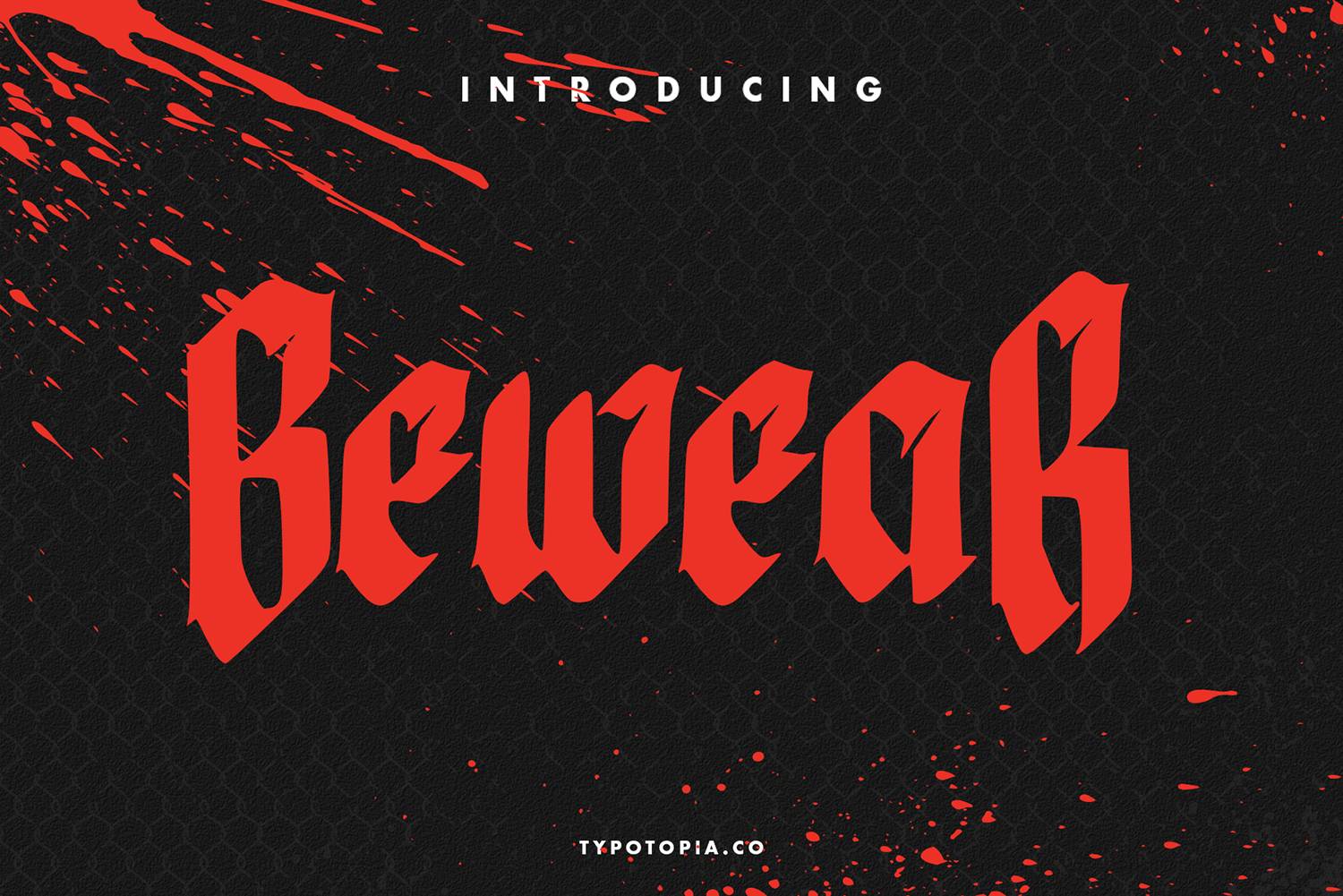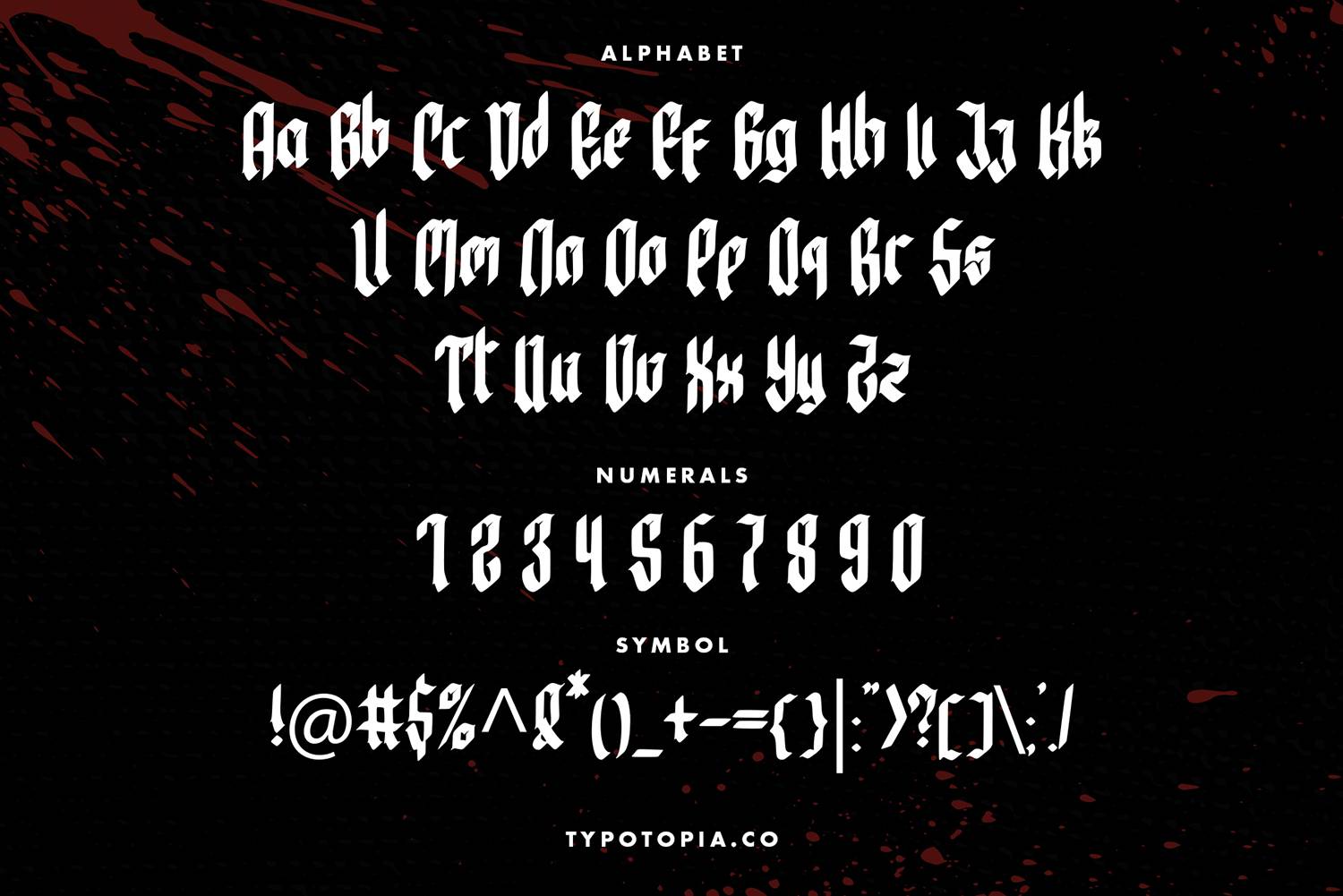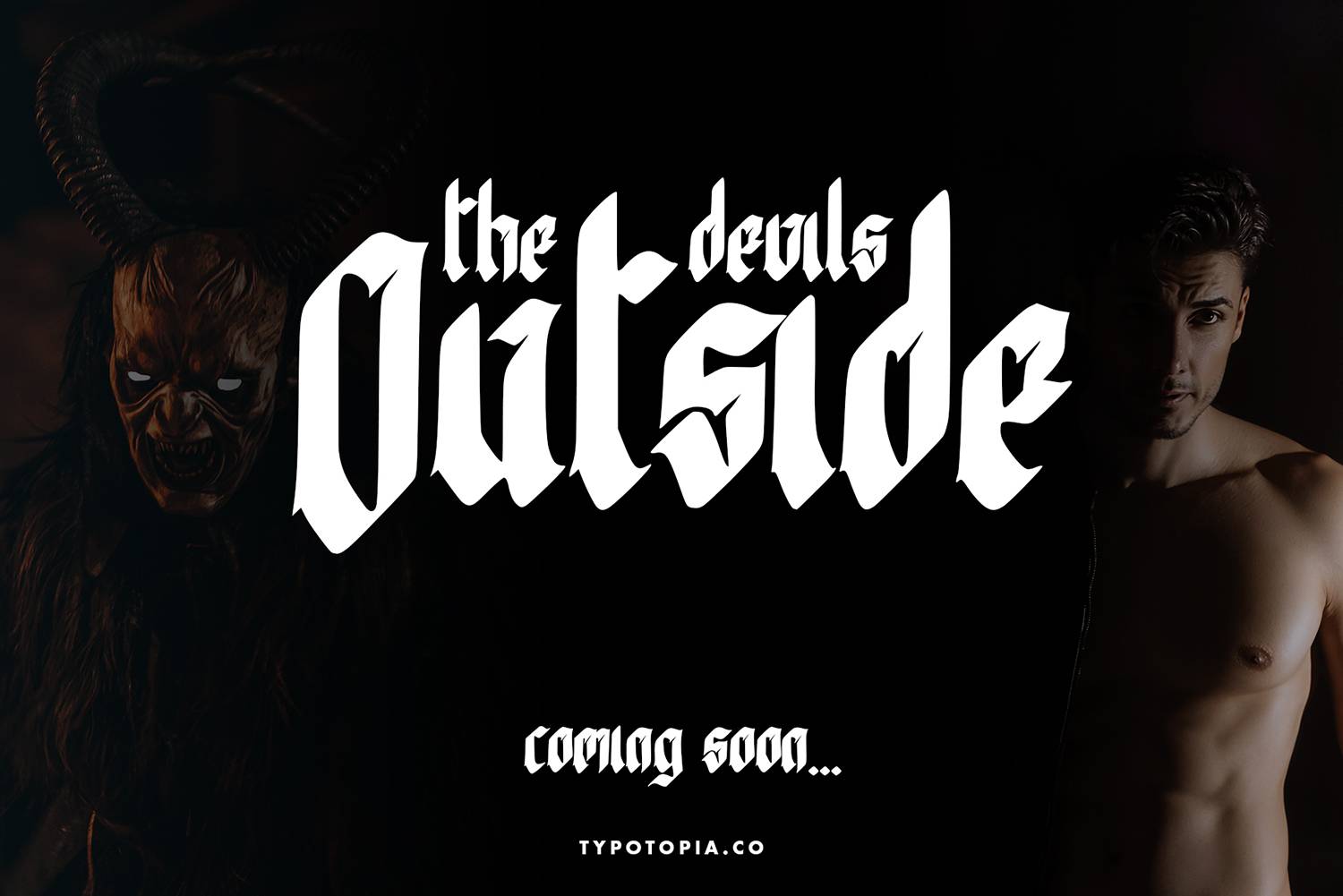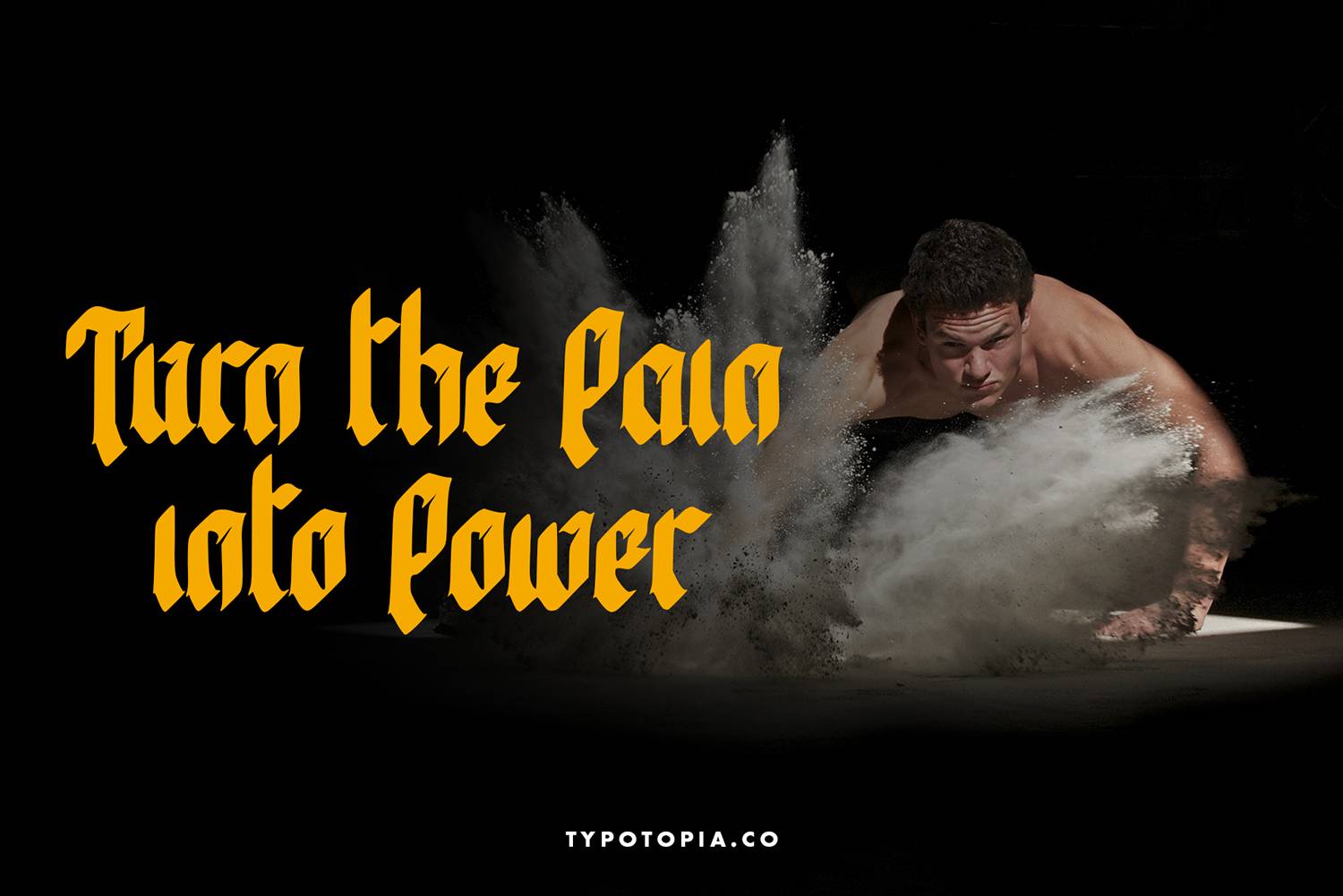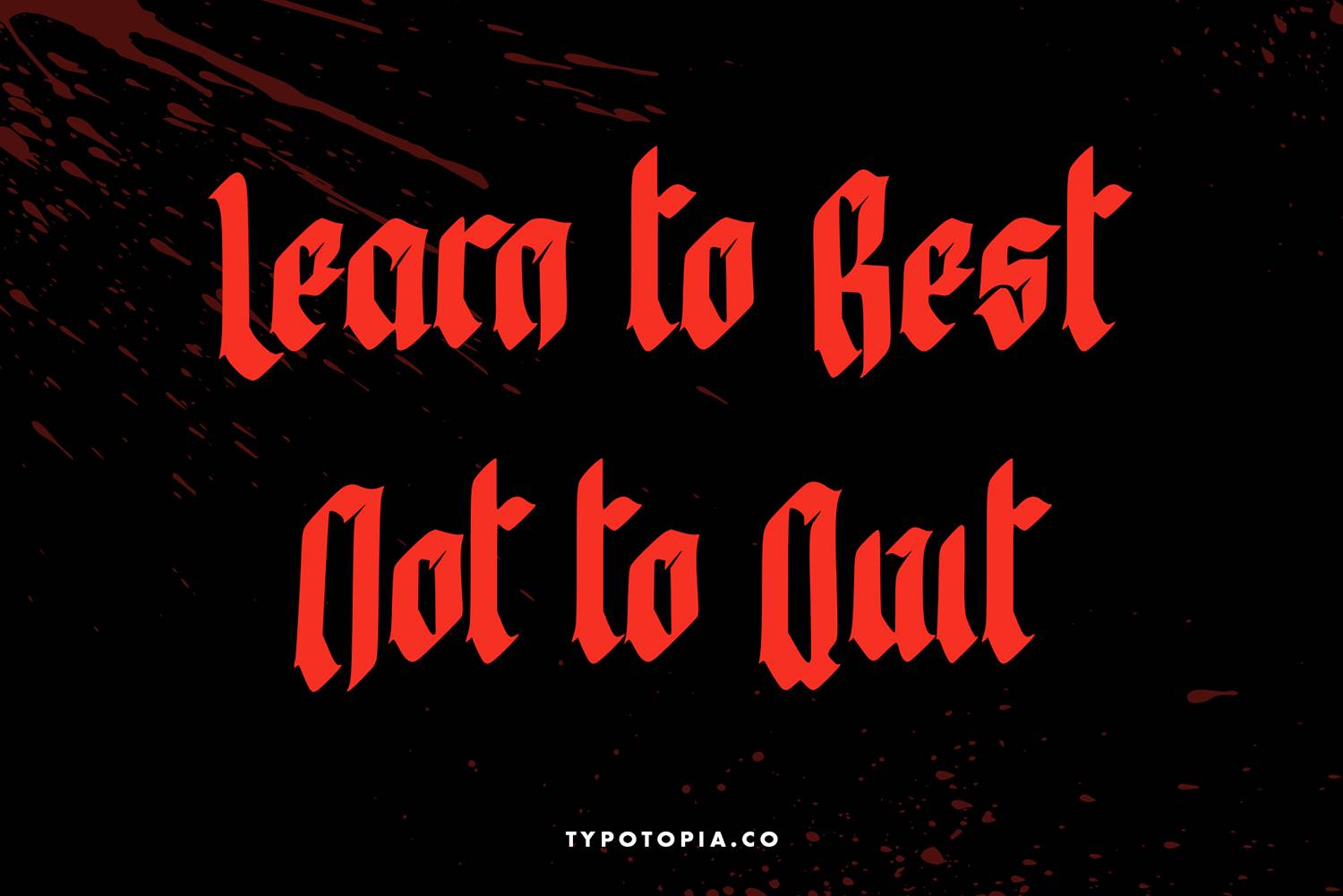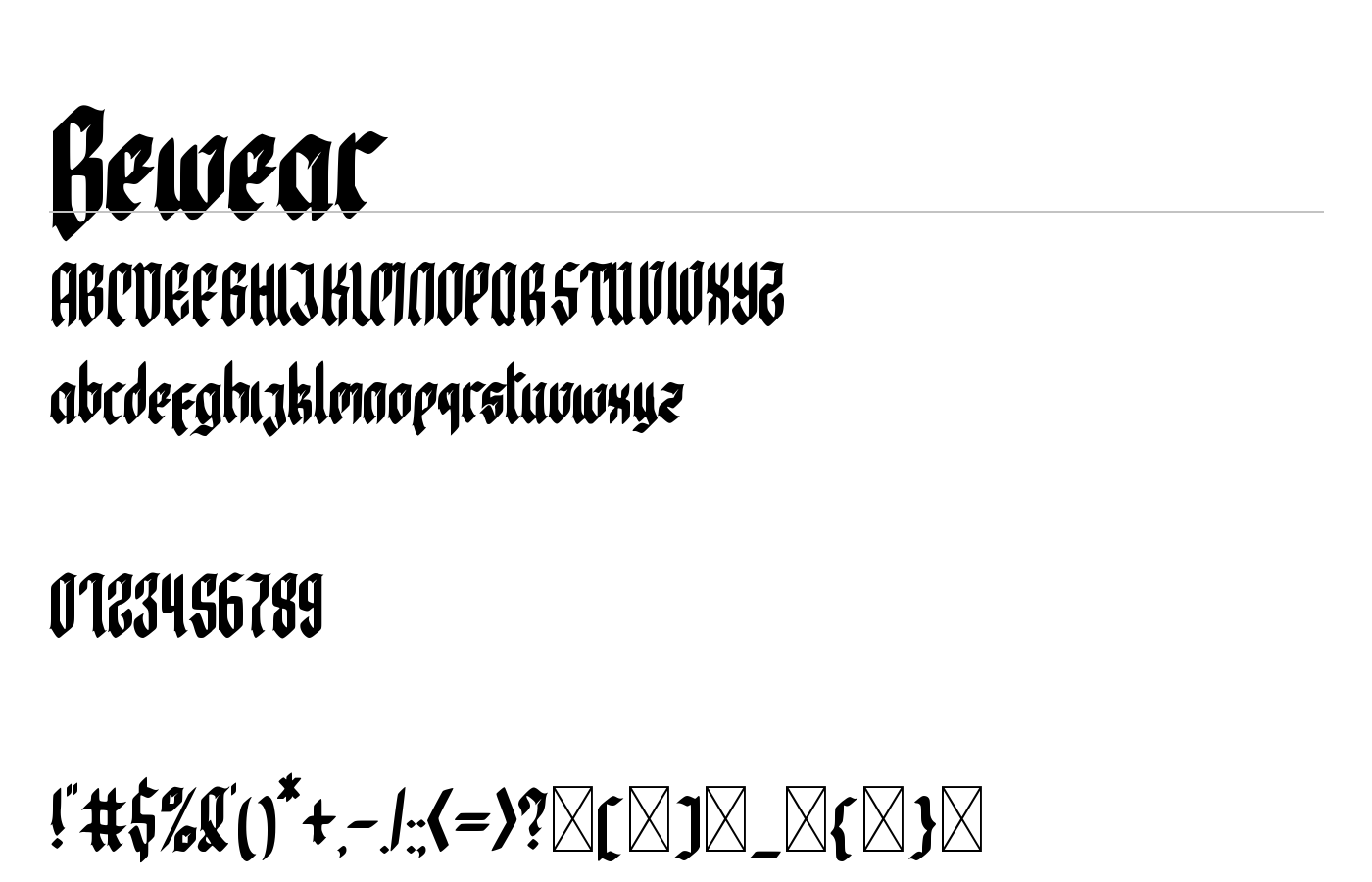
Bewear Creepy Font is a bold, blackletter-style typeface with a narrow width and sharp, angular strokes that create a dark, gothic atmosphere. Its high contrast between thick and thin lines and distinct letterform shapes give it a dramatic, eerie character, making it perfect for horror-themed designs, vintage-inspired branding, and eye-catching headlines. This font works well where a strong, spooky expression is needed, especially in posters, logos, and packaging that aim to evoke mystery and intensity.
Bewear Creepy Font
About Bewear Creepy Font